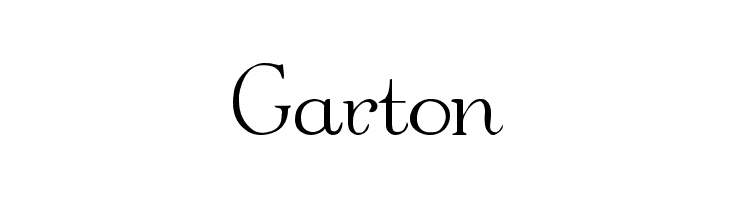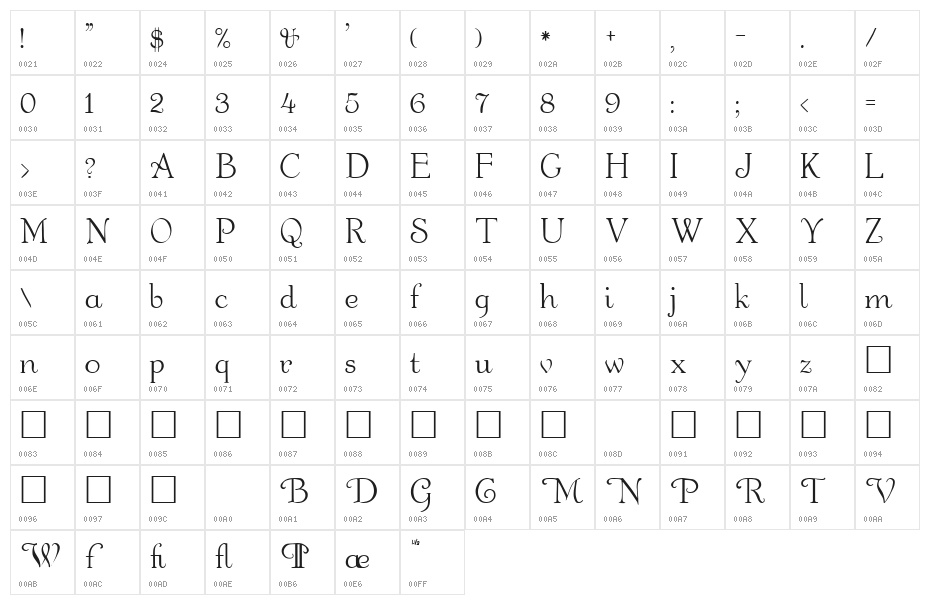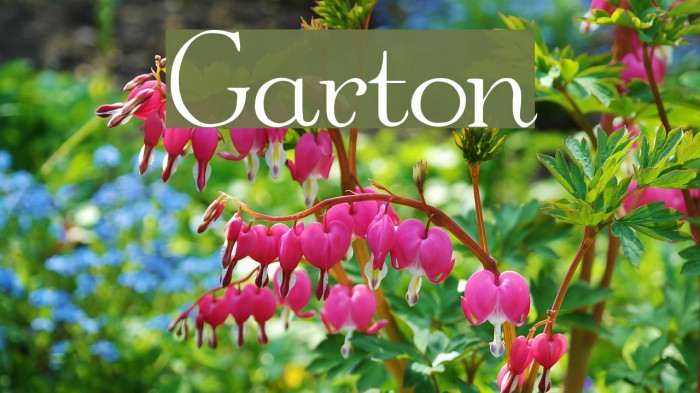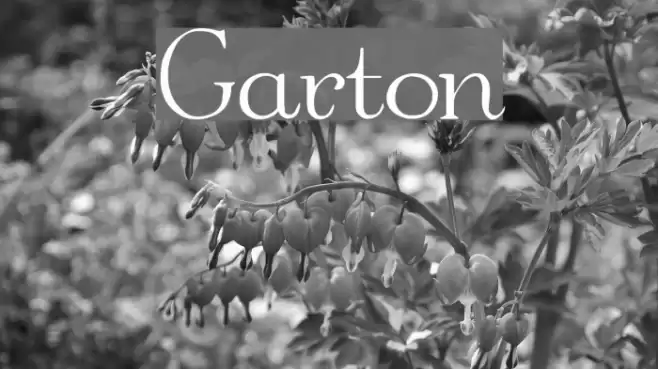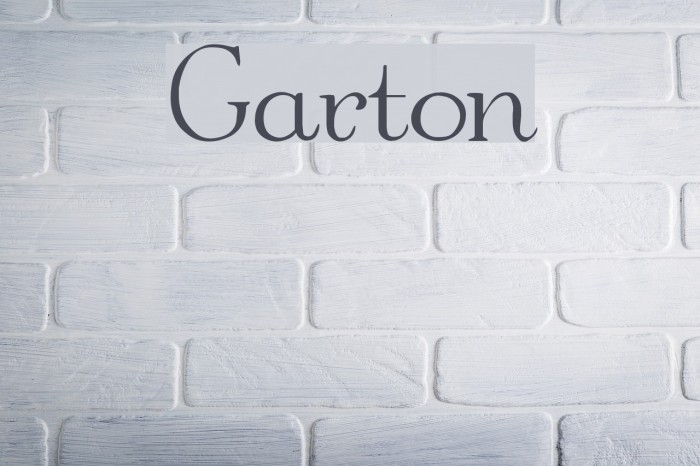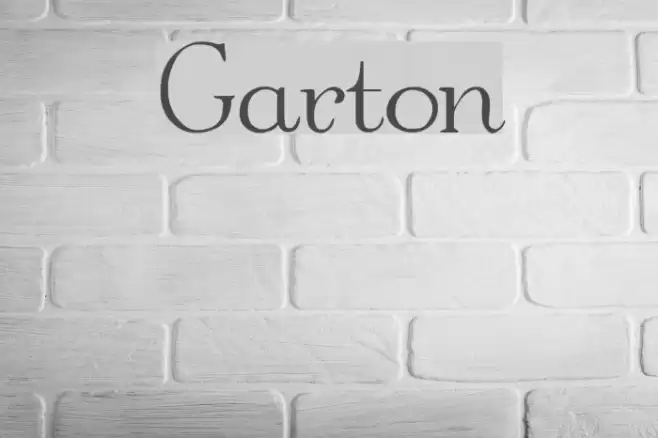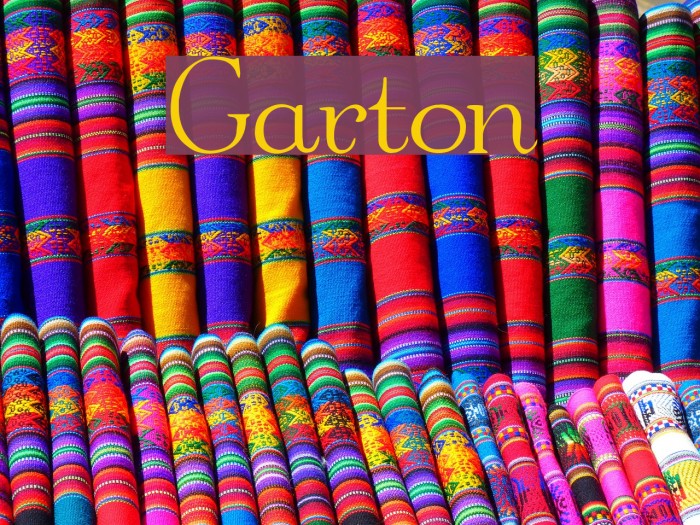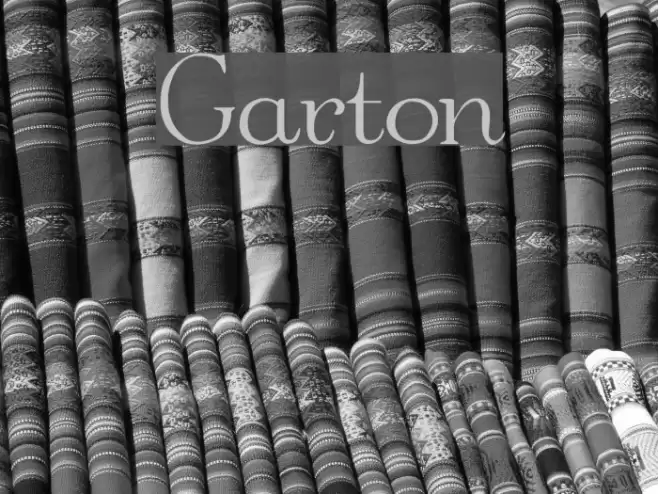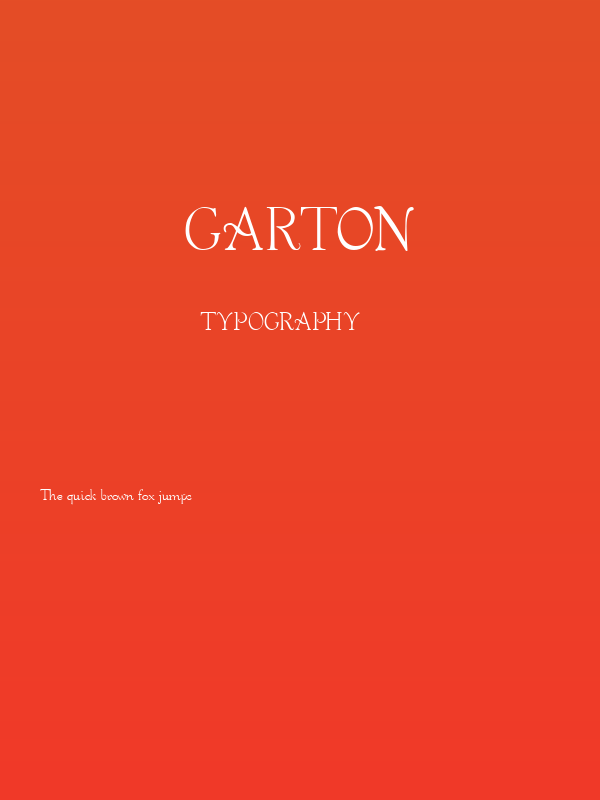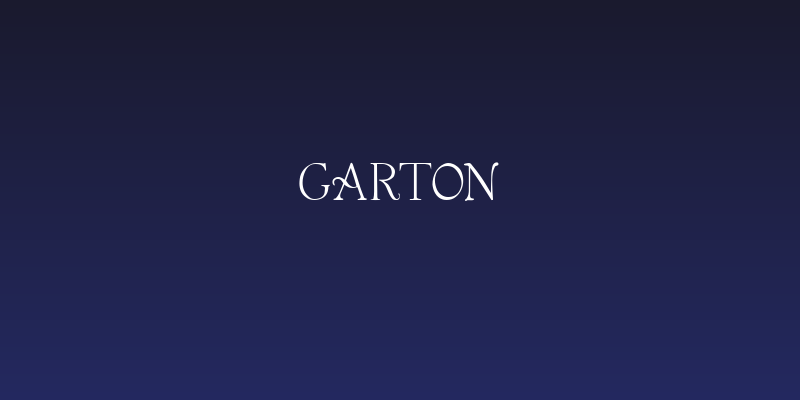
Garton Font
This font exhibits a classic serif style with elegant, flowing curves and a refined aesthetic. The uppercase letters are characterized by their traditional serifs and balanced proportions, while the lowercase letters maintain a graceful and slightly playful appearance. The numerals are well-defined, complementing the overall sophisticated look. Special characters are thoughtfully designed, adding to the font's versatility. The font's design is suitable for projects that require a touch of elegance and tradition, making it ideal for formal invitations, editorial layouts, and branding that seeks a timeless appeal.
Overall StyleClassic
Use CaseHeadlines, Body text, Logos
Proposed ProjectsIdeal for formal invitations, editorial layouts, and timeless branding.